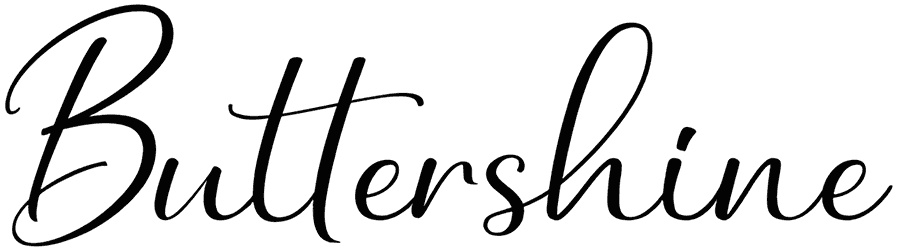
Buttershine Font
If you are hesitant about choosing a script font to design posters, logos, packaging, and flyers, it is better to take a look at our library and enjoy numerous calligraphy fonts such as Buttershine to share a sense of personalization, professionalism, and captivate the audience. Just try it and enjoy the significant outcome of it.